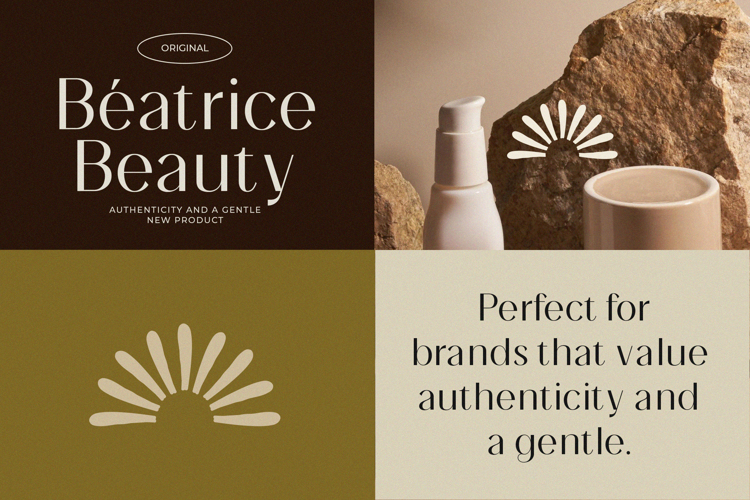
Precille Font
Precille is a modern minimalist sans serif typeface that radiates softness, elegance, and contemporary clarity. Characterized by its clean lines, balanced proportions, and subtle humanist touches, it brings a warm and approachable feel to modern design. The simplicity of its structure is enhanced by refined spacing and gentle curves, making it highly versatile for both display and editorial contexts. Ideal for lifestyle branding, beauty packaging, magazines, and sophisticated digital layouts, Precille offers a calm yet confident visual voice that feels timeless and effortlessly stylish. Its various weights and OpenType features further enhance its adaptability, making it a perfect choice for a wide range of design applications.